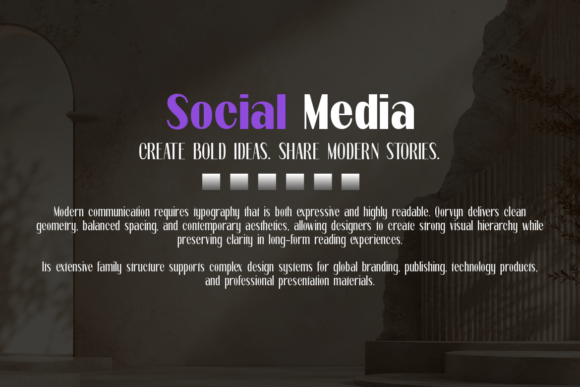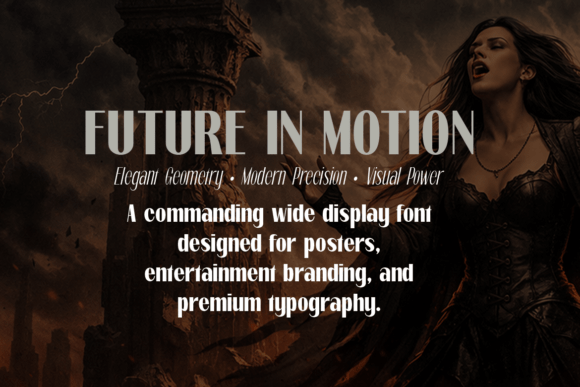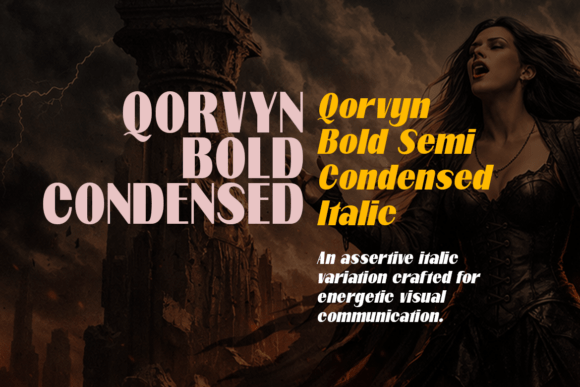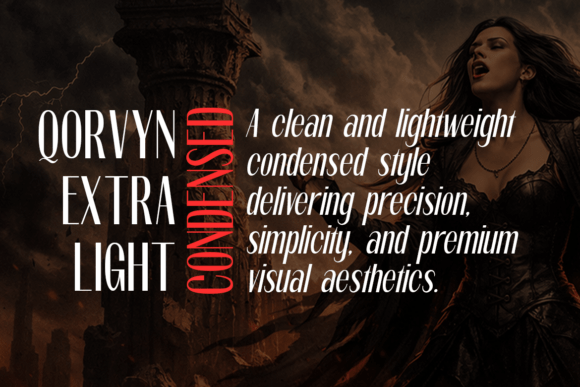
Introduction to Qorvyn Font
Remember that moment when you’re working on a creative project, and the perfect font is all that’s missing to bring it to life? You scroll through font libraries, searching for the ideal combination of style and functionality. That’s where Qorvyn Font comes in – a high-quality, modern sans-serif typeface designed to elevate your designs and leave a lasting impression.
As a valuable design resource, Qorvyn Font offers a refined condensed structure, perfect for balancing efficiency and readability. With 18 styles to choose from, including 9 upright and 9 italic, you’ll have the flexibility to create stunning visual effects, from clean and professional to dynamic and expressive. Whether you’re working on a free download or a commercial project, Qorvyn Font’s transparent background and adaptable nature make it an ideal choice for modern branding, editorial design, and more.
Key Features of Qorvyn Font
- High-quality typography with a unique, modern design, making it an excellent design resource for creative projects.
- Includes a transparent background, making it easy to layer over images or other design elements.
- Perfect for creative projects, such as logos, branding, and typography-based designs, where a unique and modern font is required.
Honest Review: Qorvyn Font
As a designer, I’m always on the lookout for high-quality design resources to elevate my creative projects. The Qorvyn Font has caught my attention, and I’m excited to share my honest review with you.
- ✨ It offers a transparent background, which is perfect for creating stunning visual effects.
- ✨ The font is highly customizable, allowing you to adjust the size, color, and style to suit your design needs.
- ⚠️ The font may not be suitable for small-scale text, as it can become difficult to read.
- ⚠️ Some users may find the font’s bold and playful style overwhelming, depending on the context of their design project.
Overall, I think the Qorvyn Font is a valuable design resource that can add a touch of creativity to your projects. While it has some limitations, it’s definitely worth considering for your next design endeavor.
Tips for Getting the Most Out of Qorvyn Font
For optimal results, use the Qorvyn Font on a transparent background to create a clean and minimalist design. You can also experiment with different font sizes and colors to add visual interest to your project. Additionally, consider using the font in combination with other design resources, such as graphics and images, to create a cohesive and high-quality design.
The Qorvyn Font is a versatile design resource that can be used in a variety of creative projects, including logos, graphics, presentations, and documents. It’s particularly useful for designers who want to create a clean and modern visual design, and is a great addition to any design resource library.